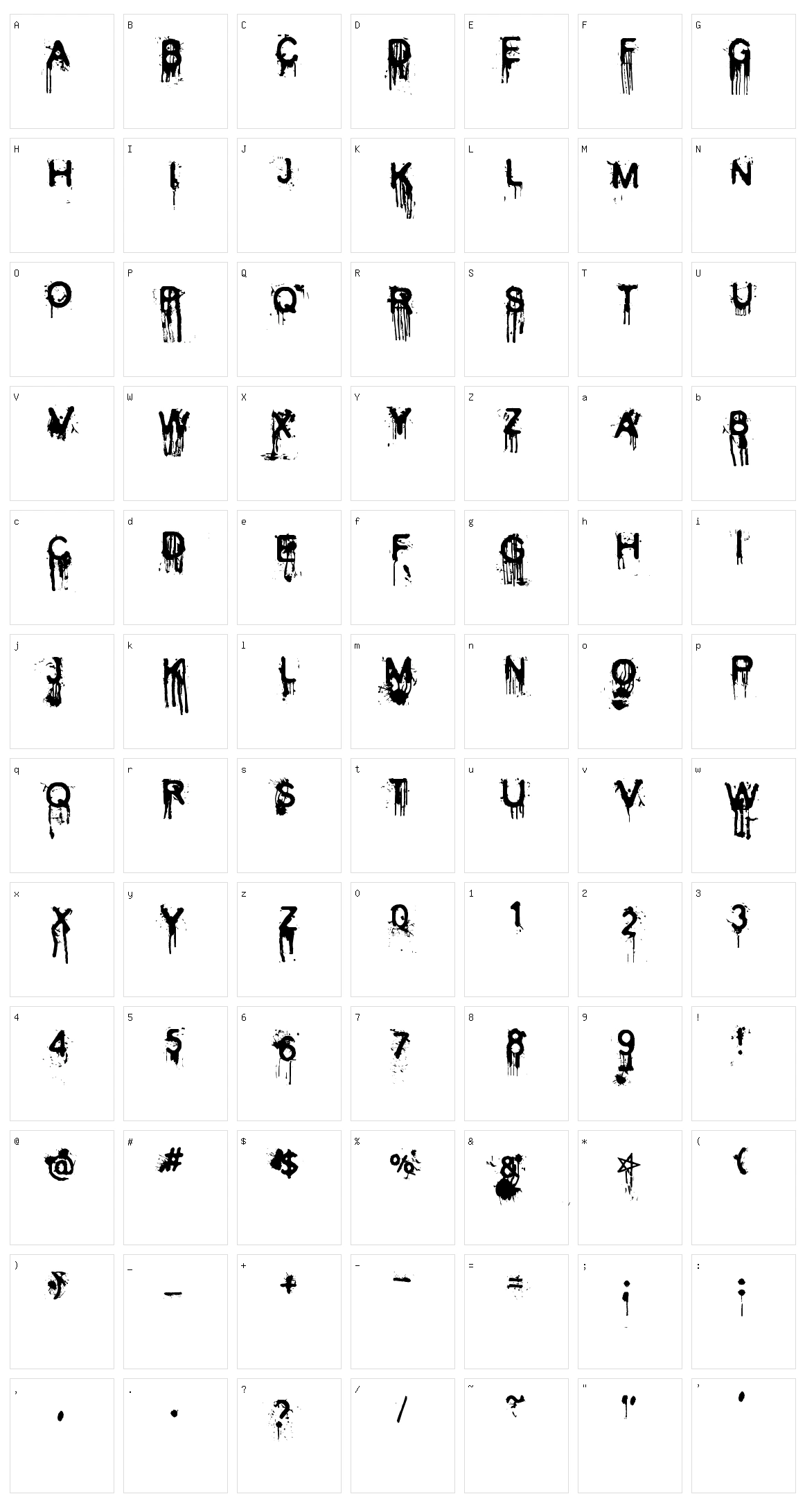
The free font Cold Night for Alligators is carefully designed by junkohanhero, showcasing a thoughtful balance of creativity and usability and falls under the Horror font style. When you download the ZIP file, it contains only 95.59 KB of font files, making it lightweight and quick to download. Please review the license details below to understand permitted usage and distribution rights. If license information is not available, we recommend using this font for personal projects only or contacting the author directly for commercial usage permissions.